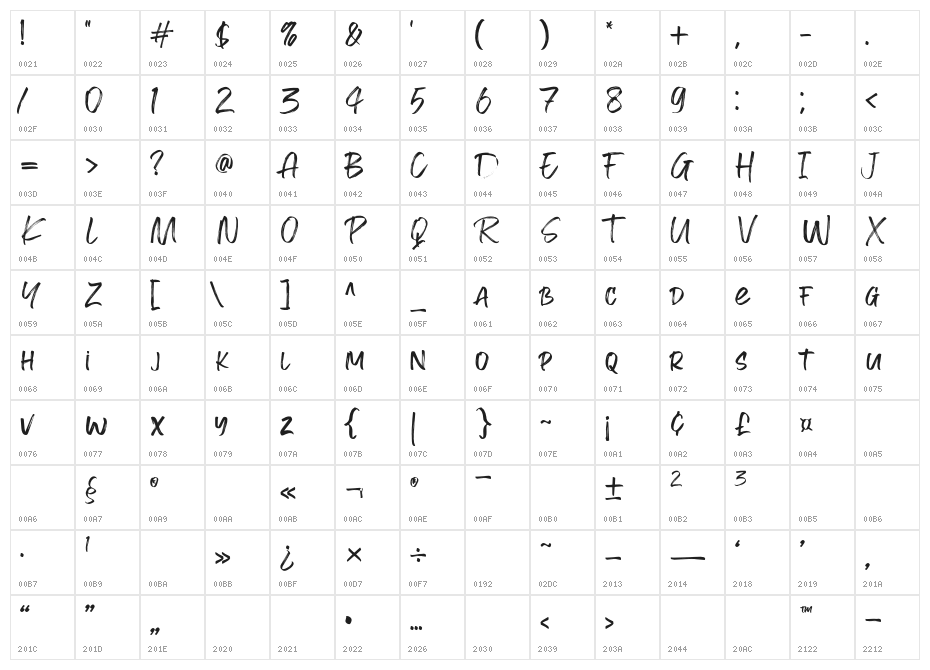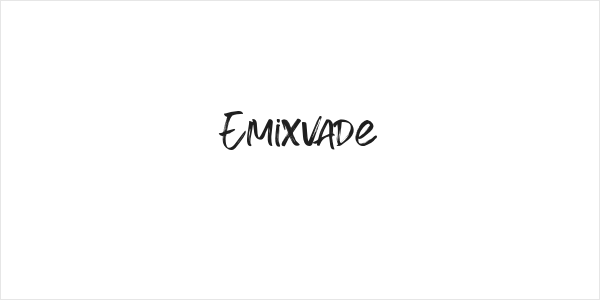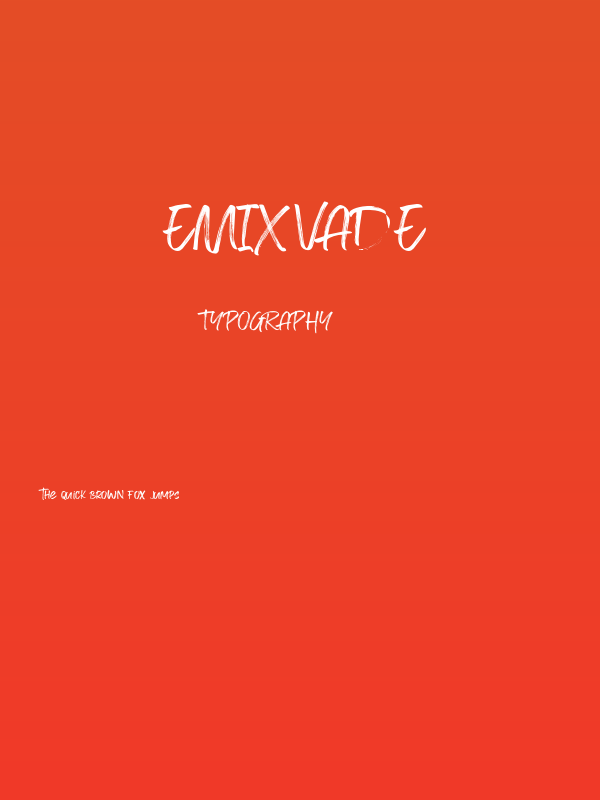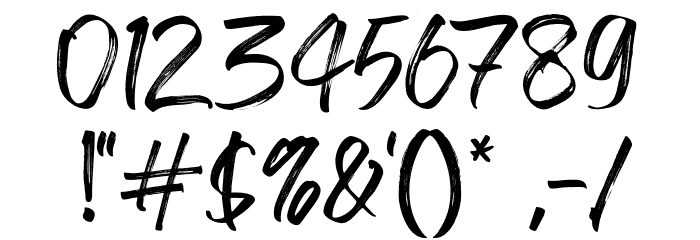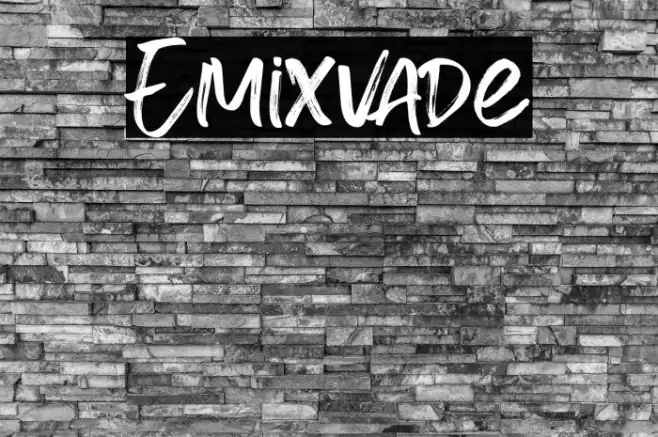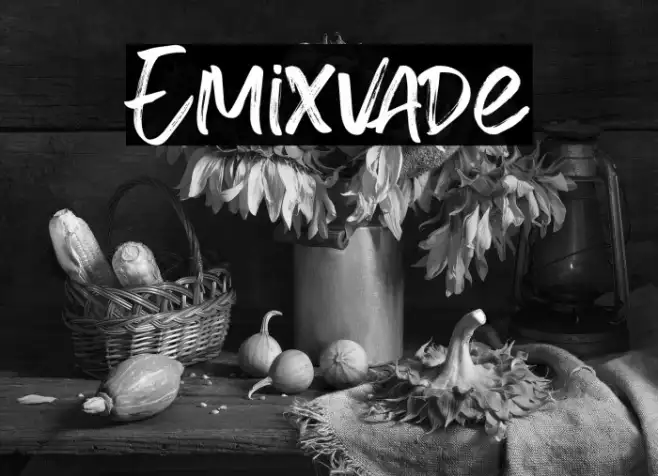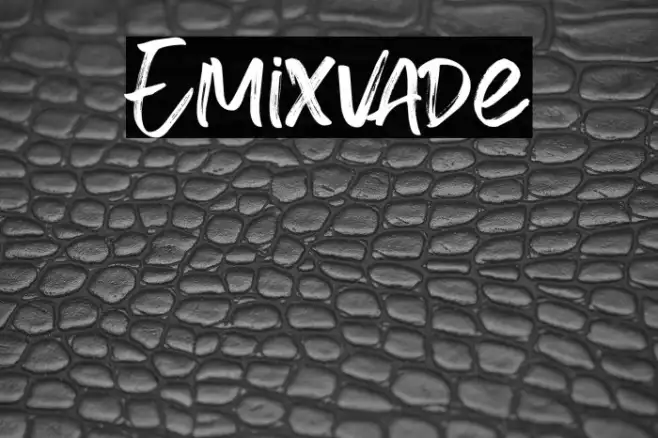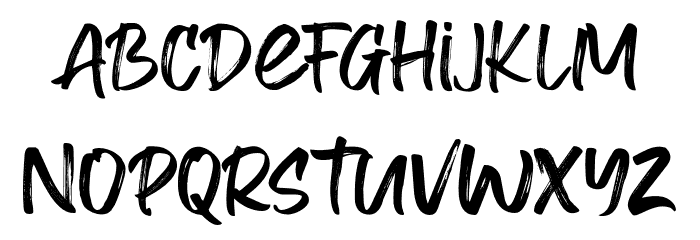
Emixvade Font
Emixvade Description
This font exudes a dynamic and energetic style, characterized by its brush-like strokes and expressive flair. The letters are crafted with a sense of movement, giving each character a unique and artistic appearance. The uppercase and lowercase letters maintain a consistent flow, while the numbers and special characters complement the overall aesthetic. The font's design is reminiscent of hand-painted signage, making it ideal for projects that require a personal and creative touch.
| Proposed Projects | Perfect for branding, posters, artistic projects, and any design that requires a bold, creative statement. |